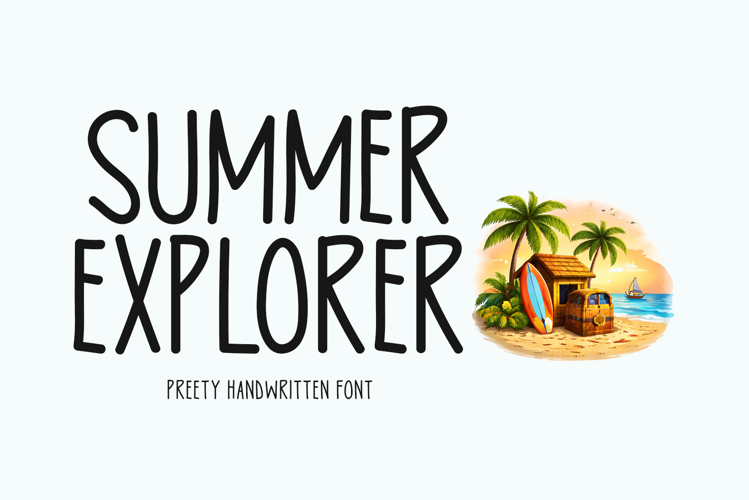
Introducing Summer Explorer!
Summer Explorer is a bold, playful handwritten-style font designed for travel, adventure, and outdoor-themed visuals—perfect for vibrant branding, posters, and creative storytelling.